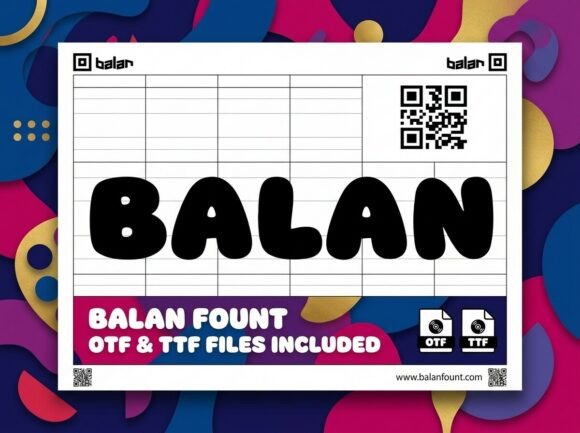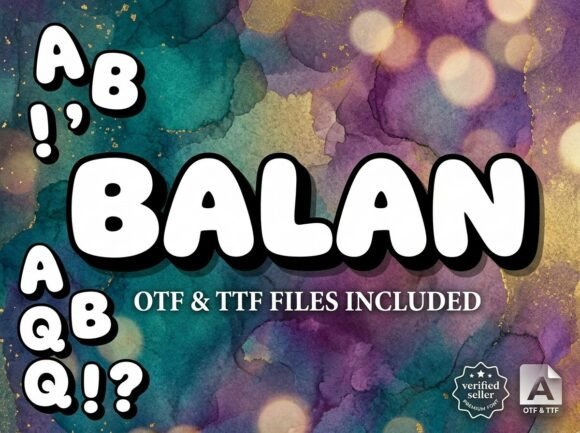
Introducing Balan Font: A Stunning Decorative Display Font
Are you tired of using the same old fonts for your designs? Look no further than Balan Font, a unique and artistic display font that’s sure to turn heads. With its strong visual personality and decorative elements, this font is perfect for creators who want to add a touch of elegance and sophistication to their work.
What Makes Balan Font Special?
Balan Font is a decorative display font designed to be the center of attention. Its unique artistic elements and strong visual personality make it perfect for bold headlines, artistic logos, and creative packaging. Whether you’re a designer, craftsperson, or DIY enthusiast, this font is sure to elevate your work to the next level.
Key Features of Balan Font
• Unique Artistic Elements: Balan Font features intricate and decorative elements that add a touch of elegance to any design.
• Strong Visual Personality: This font has a distinct and recognizable style that’s sure to make your designs stand out.
• Versatile: Balan Font is perfect for a variety of design applications, including bold headlines, artistic logos, and creative packaging.
• Professional and Polished Finish: Despite its decorative nature, Balan Font maintains a professional and polished finish that’s suitable for even the most high-end designs.
⚠️ IMPORTANT NOTE BEFORE PURCHASE: Balan Font is an ALL-CAPS (Uppercase Only) display typeface. It does not include lowercase letters. It is specifically designed for high-impact headlines, logos, and decorative initials where every letter is a work of art.
Who is Balan Font for?
Balan Font is perfect for:
• Designers: Graphic designers, typographers, and branding experts who want to add a touch of elegance and sophistication to their designs.
• Crafters: Craftspersons, DIY enthusiasts, and makers who want to add a personal touch to their projects.
• Business Owners: Entrepreneurs and business owners who want to create a strong brand identity with unique and eye-catching typography.
Tips for Using Balan Font
Here are some tips for getting the most out of Balan Font:
• Use it sparingly: Balan Font is a decorative font, so use it sparingly to add emphasis and visual interest to your designs.
• Pair it with a simple font: Pair Balan Font with a simple font to create contrast and add visual hierarchy to your designs.
• Experiment with different sizes and colors: Don’t be afraid to experiment with different sizes and colors to find the perfect combination for your design.
Balan Font is a stunning decorative display font that’s perfect for creators who want to add a touch of elegance and sophistication to their designs. With its unique artistic elements, strong visual personality, and versatility, this font is sure to elevate your work to the next level. So why wait? Purchase Balan Font today and start creating stunning designs that turn heads!